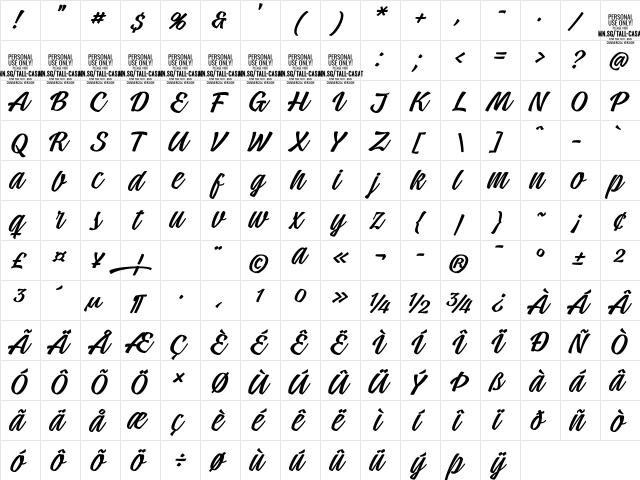
Tall Casat Light PERSONAL USE Regular
| Foundry | Mans Greback |
| Designer | Mans Greback |
Design Context for Tall Casat Light PERSONAL USE Typeface
Tall Casat Light PERSONAL USE is a composed and adaptable typeface that performs quietly and consistently across a wide range of design contexts. Its slender proportions lend an understated elegance to any composition.